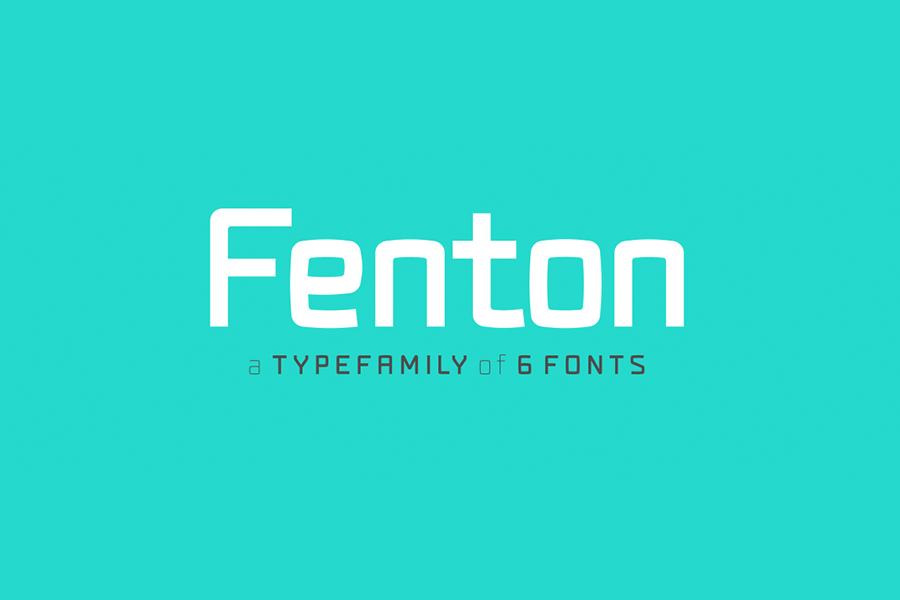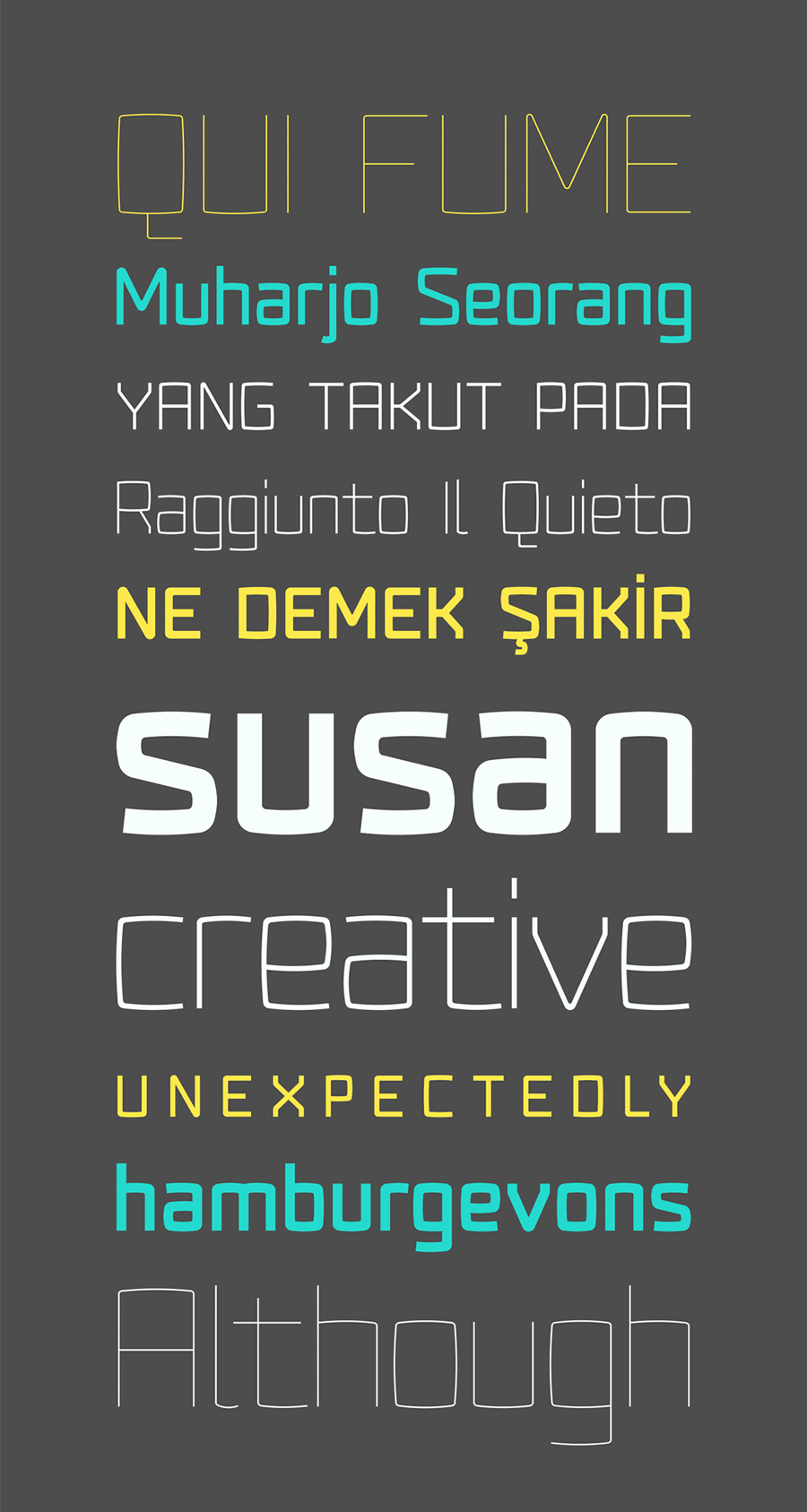
Fenton font family is a free sans-serif font that comes with 6 weights. It has a higher lowercase structure than other fonts and it gives a modern, rounded and squared character. Each weight comes with 370 glyph. With its clean and sleek look, Fenton is suitable for logo, headlines, promotional graphics for modern and innovative products.
- Designer: FATİH GÜNEŞ
- Styles: 6
- Category: Sans Serif